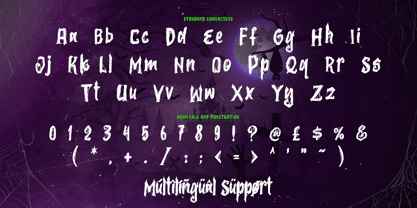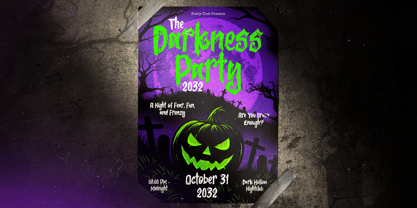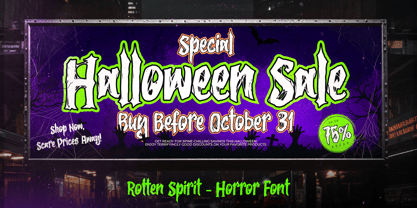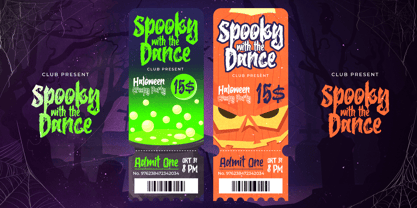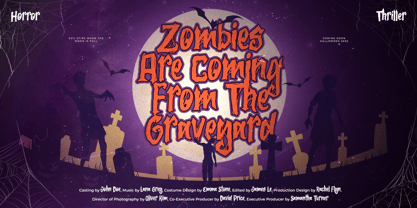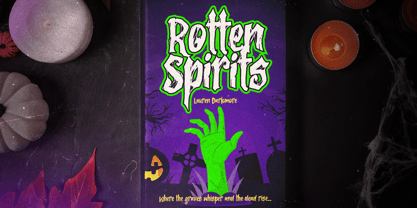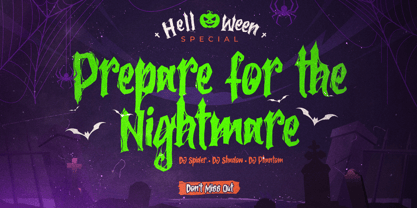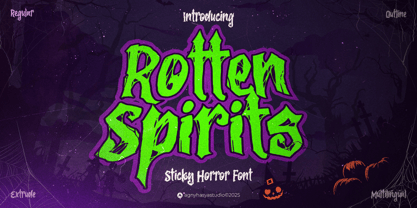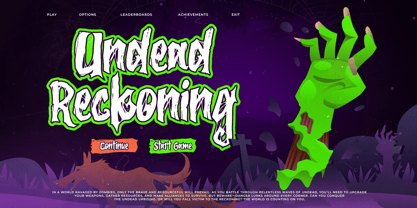
Rotten Spirits
by Agny Hasya Studio
The Rotten Spirits Font Family was designed by Firman Maulana and published by Agny Hasya Studio. Rotten Spirits contains 3 styles and family package options.
Rotten Spirits is a sticky horror font and tangled with web-like details. Its eerie, dripping strokes crawl across the page as if spun straight from a spider’s lair, perfect for Halloween posters, spooky titles, creepy branding, and any design that needs a truly unsettling vibe. Every character oozes with sticky, web-like energy and tangled threads that bring a sense of rot, decay, and crawling terror. From haunted invitations to monster-themed designs, this font transforms your work into a chilling spectacle of horror. With three distinct styles Regular, Outline, and Extrude, Rotten Spirits gives you the power to mix, layer, and experiment for endless spooky combinations. Stay wicked, stay tangled, and keep creating nightmares. Warm regards, agnyhasyastudio
Designers: Firman Maulana
Publisher: Agny Hasya Studio
Foundry: Agny Hasya Studio
Design Owner: Agny Hasya Studio